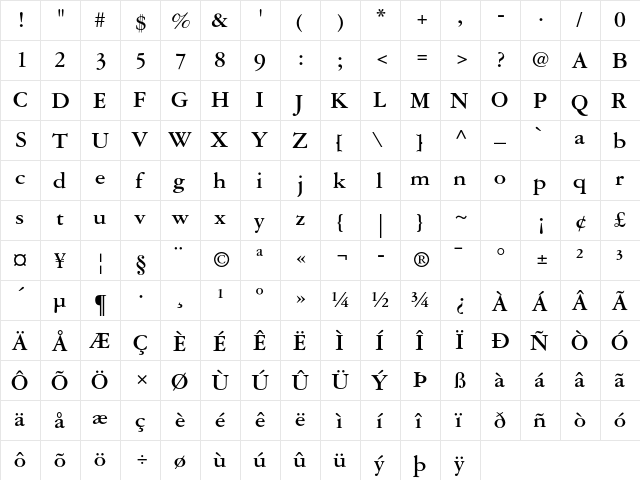
Garamond 3 LT Std Bold Font Preview
Garamond 3 LT Std Bold
Garamond 3 LT Std Bold Font Details
| Designer | Morris Fuller Benton, Thomas Maitland Cleland |
Design Context for Garamond 3 LT Std Typeface
Garamond 3 LT Std is a composed and adaptable typeface that performs quietly and consistently across a wide range of design contexts. The heavy weight commands attention and anchors typographic hierarchies.